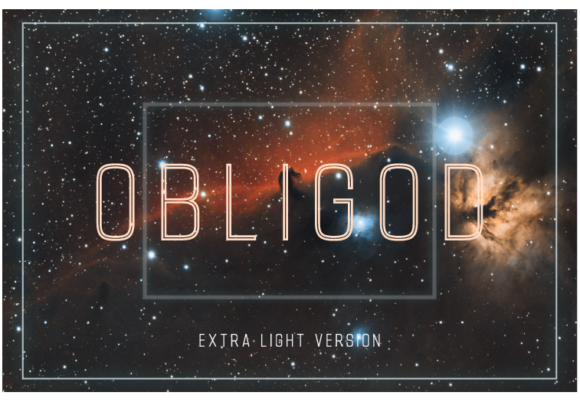
Introducing Obligod Outline Extra Light Font, a sans serif masterpiece crafted with distinctive elegance. Inspired by the fusion of classic serif and modern sans serif styles, Obligod Outline emerges as a typeface that harmoniously blends the past with the present. Its slender strokes, open letterforms, and delicate outlines create a visually appealing aesthetic that captivates the eyes. Prepare to be spellbound as you journey through the endless possibilities that Obligod Outline Extra Light Font unlocks.
Embark on a branding odyssey where Obligod Outline becomes your trusted companion. Its graceful curves and confident lines lend an air of sophistication and professionalism to logos, branding materials, and packaging designs. Let your brand take center stage, leaving an indelible mark on the minds of your audience.
Unleash your creativity in the realm of digital design with Obligod Outline Extra Light Font. Its digital prowess shines through in web design, social media graphics, and online advertisements, adding a touch of elegance that elevates your digital presence. Witness the transformative power of typography as Obligod Outline harmonizes seamlessly with visual elements, enhancing the impact of your online endeavors.
Venture into print with Obligod Outline Extra Light Font and watch your designs come alive on paper. Its clarity and legibility make it an exceptional choice for books, magazines, brochures, and other print media. Immerse yourself in the tactile experience of printed materials, where the crispness of Obligod Outline's characters dances before your eyes, delivering a reading experience that is both visually appealing and intellectually stimulating.
But Obligod Outline Extra Light Font's talents extend far beyond the realm of branding and print. Dive into the world of artistic expression and let your imagination run wild. Its versatility allows it to flourish in invitations, cards, posters, and other creative projects. Witness how Obligod Outline effortlessly elevates your designs, transforming them from ordinary to extraordinary.